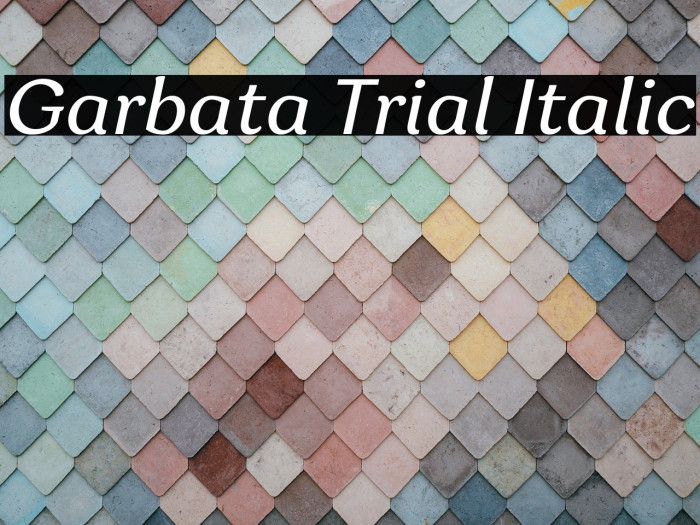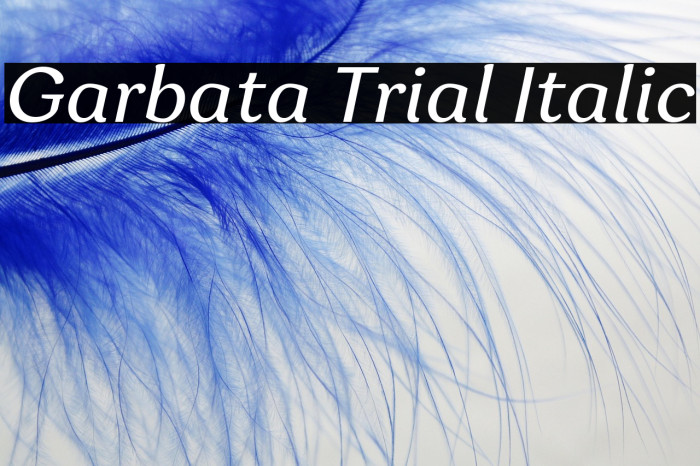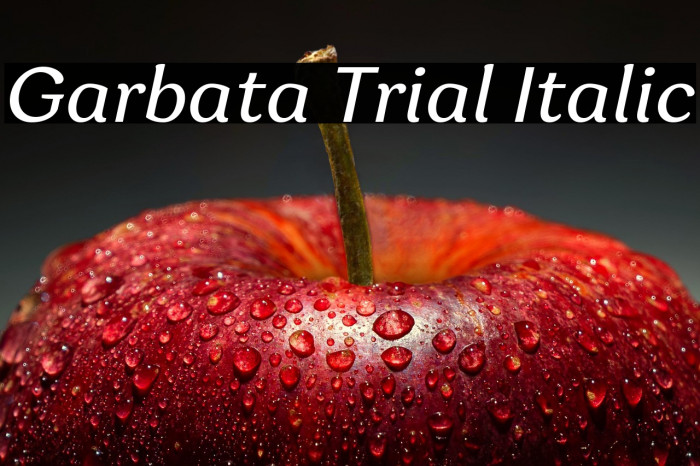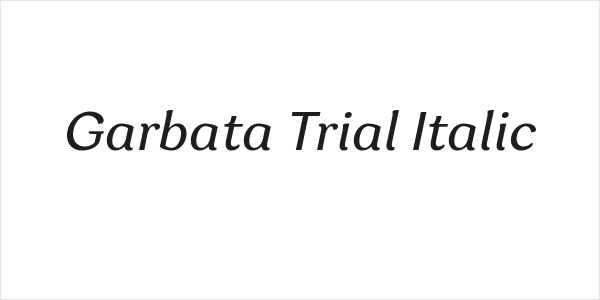
Garbata Trial Italic Font
Garbata Trial Italic Description
This font features an elegant and sophisticated italic style, characterized by smooth curves and a slight slant that adds a dynamic feel to the text. The uppercase letters are well-proportioned, with a consistent stroke width that maintains readability. The lowercase letters are designed with a gentle flow, enhancing the overall aesthetic appeal. The numerals are clear and distinct, ensuring they stand out in any context. Special characters are thoughtfully crafted, maintaining the font's cohesive look. This typeface is versatile, suitable for both digital and print media, offering a modern yet timeless appearance.